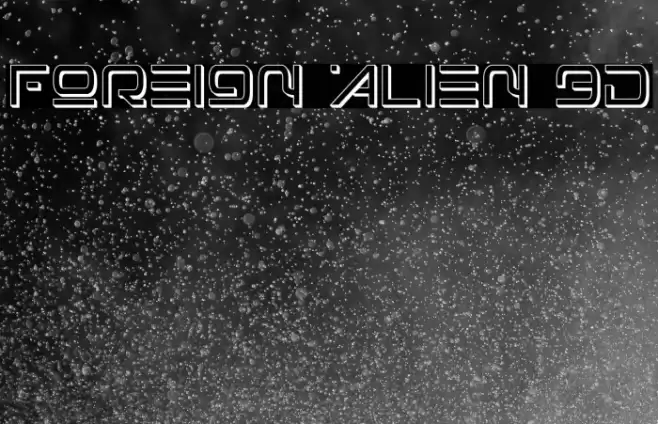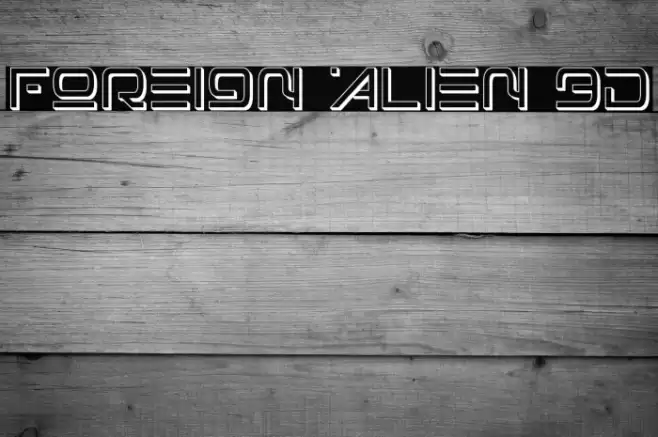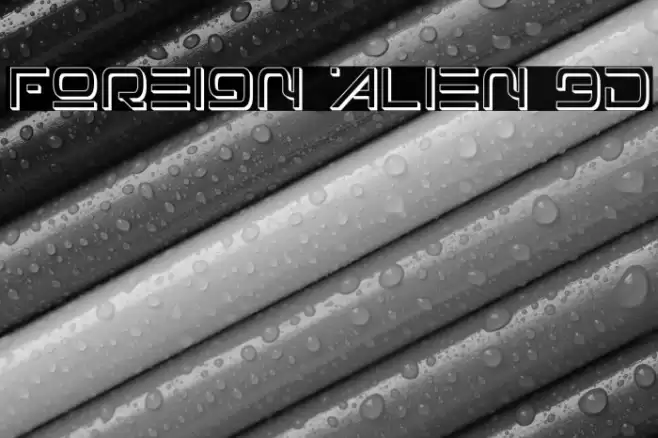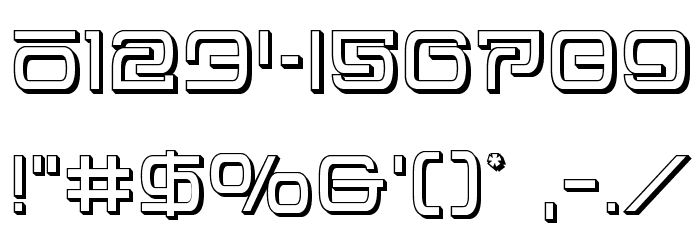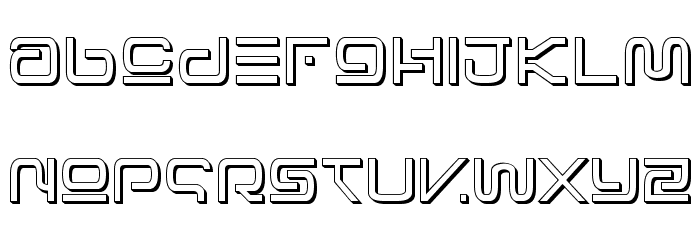
Foreign Alien 3D Font
Foreign Alien 3D Description
This font features a futuristic and geometric design, characterized by its three-dimensional appearance and angular shapes. The letters are outlined with a hollow interior, giving them a unique, space-age look. The uppercase and lowercase letters share a consistent style, with sharp edges and a uniform height. Numbers and special characters are designed to match the overall aesthetic, maintaining the same angular and open structure. This font is ideal for projects that require a modern and unconventional touch, such as sci-fi themed designs or tech-related branding.
A futuristic, geometric font with a 3D, angular design from Uncategorized fonts.
- Proposed Projects: Ideal for sci-fi themed designs, tech branding, and futuristic posters.
- Overall Style: Futuristic